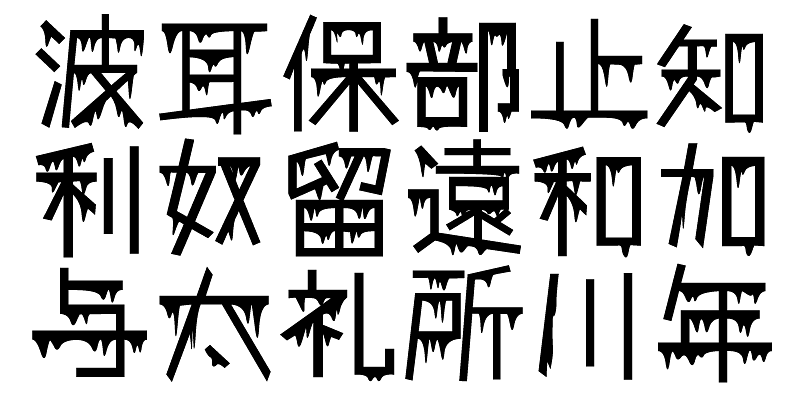
AB Tsurara Font Free Download is a unique and expressive Japanese display typeface inspired by the sharp, icy forms of icicles—tsurara in Japanese. With its elongated strokes, pointed edges, and dramatic vertical emphasis, this font brings a striking, seasonal aesthetic to any design. It’s perfect for winter-themed campaigns, theatrical posters, manga titles, or anything that needs a bold and frosty flair.
The stylized look of AB Tsurara gives your typography a powerful visual identity, while still maintaining readability in larger sizes. AB Tsurara Font Free Download works best in headers, logos, or short impactful phrases where its dynamic shapes can truly shine. It evokes a sense of cold elegance and dramatic tension, making it a favorite for bold, creative concepts.
Whether you're designing for events, media, or product packaging, this font delivers a unique personality that sets your visuals apart. Pair it with minimalist fonts for contrast or layer it with textured graphics to enhance its icy vibe.